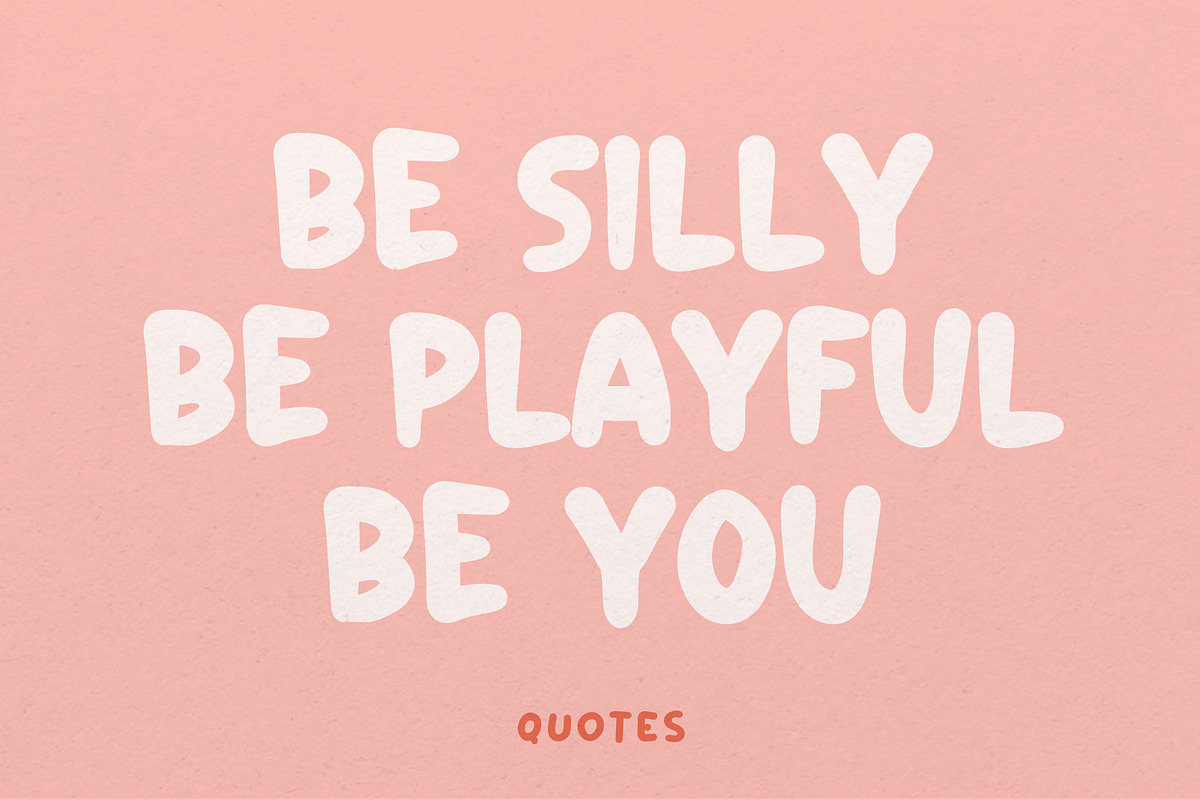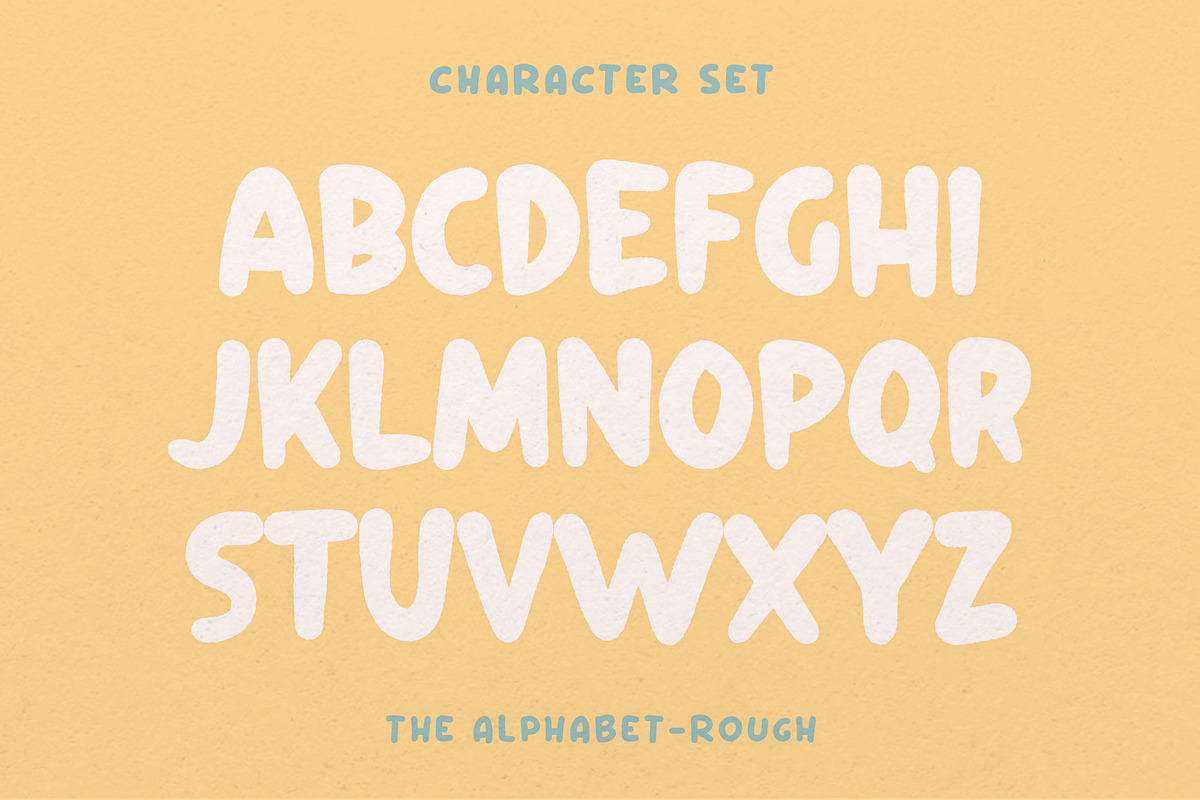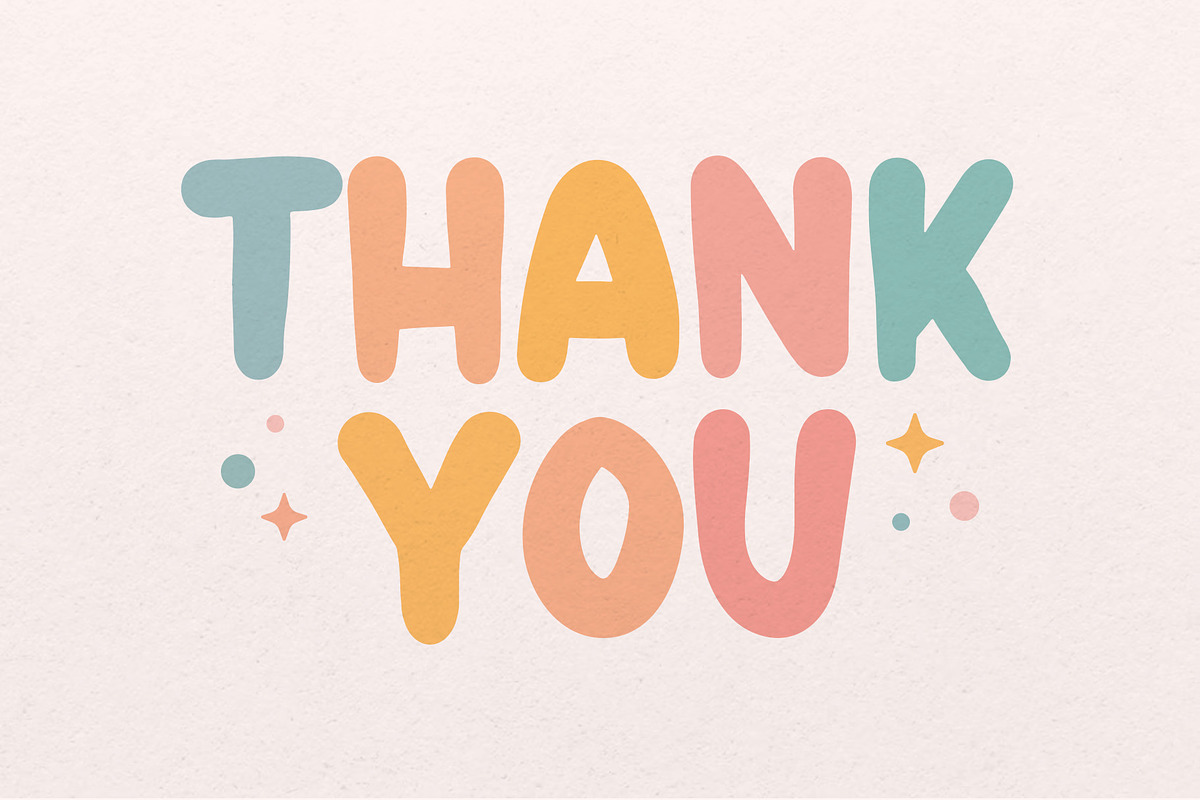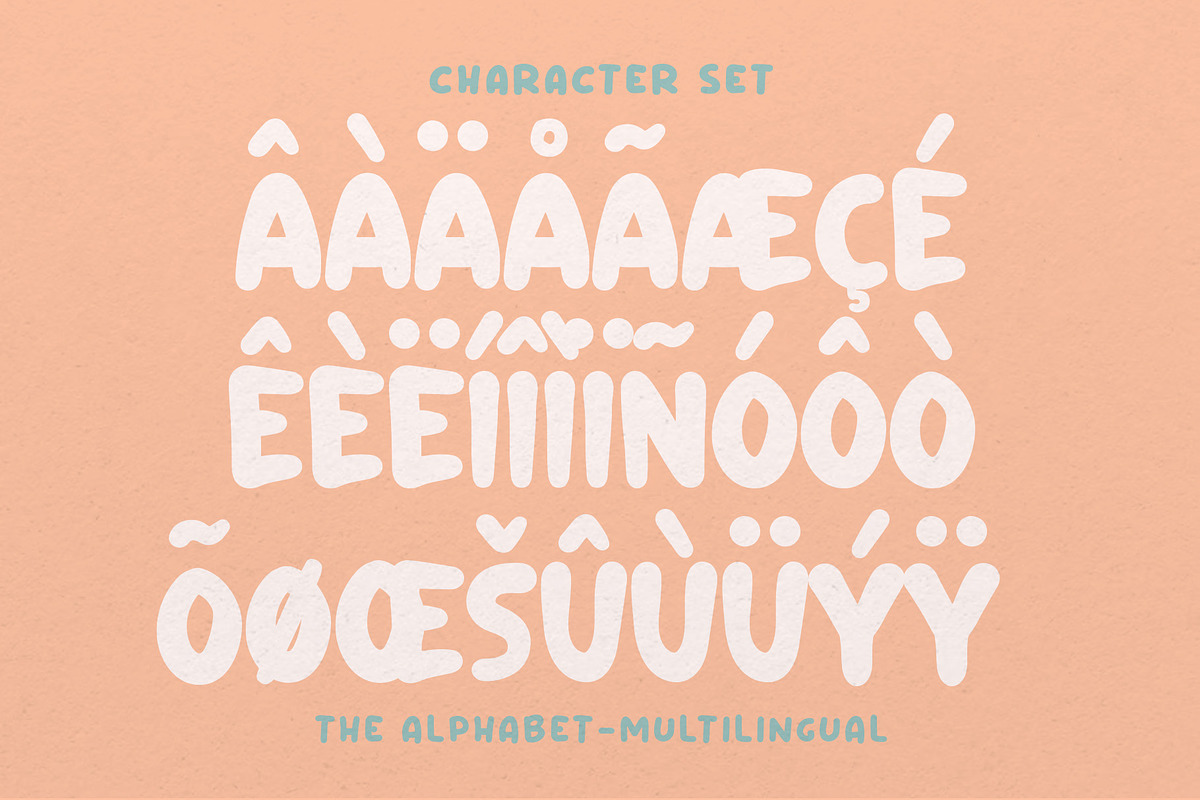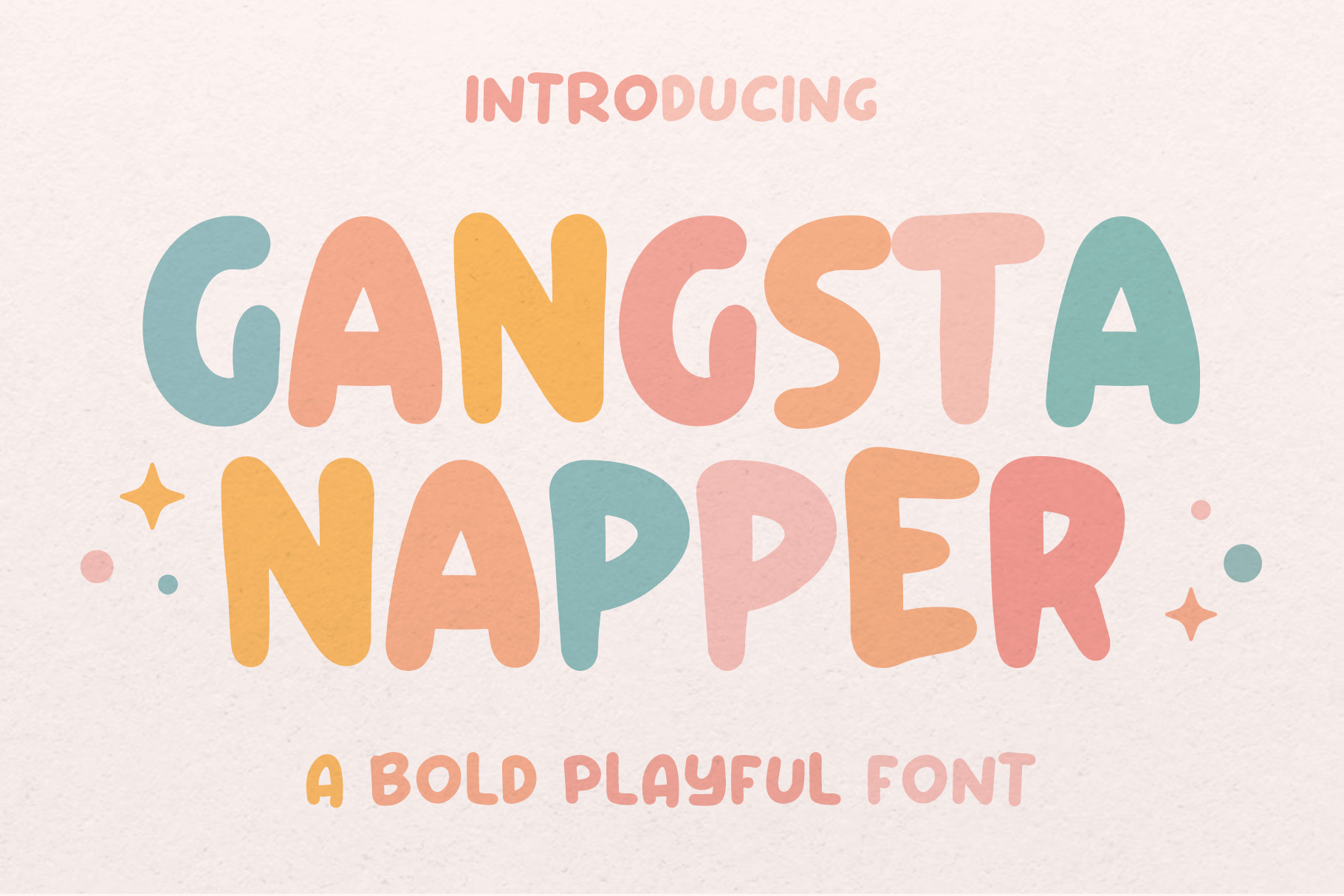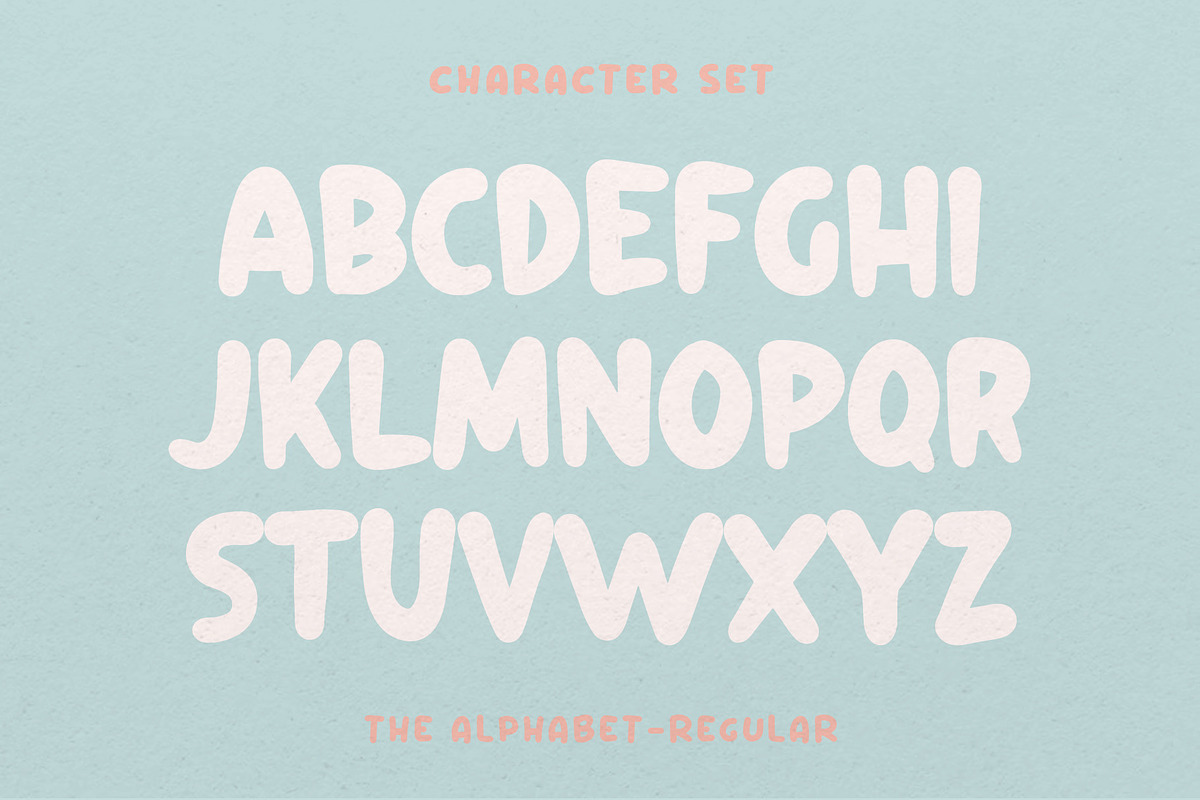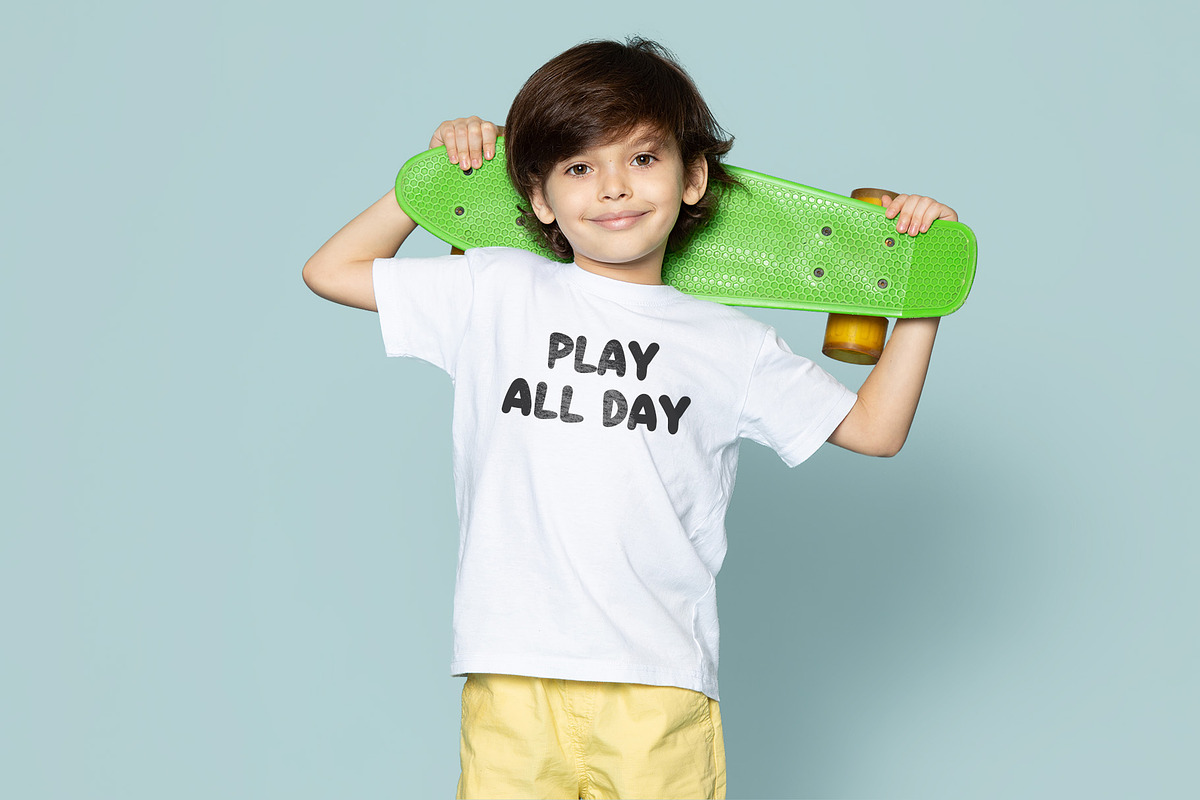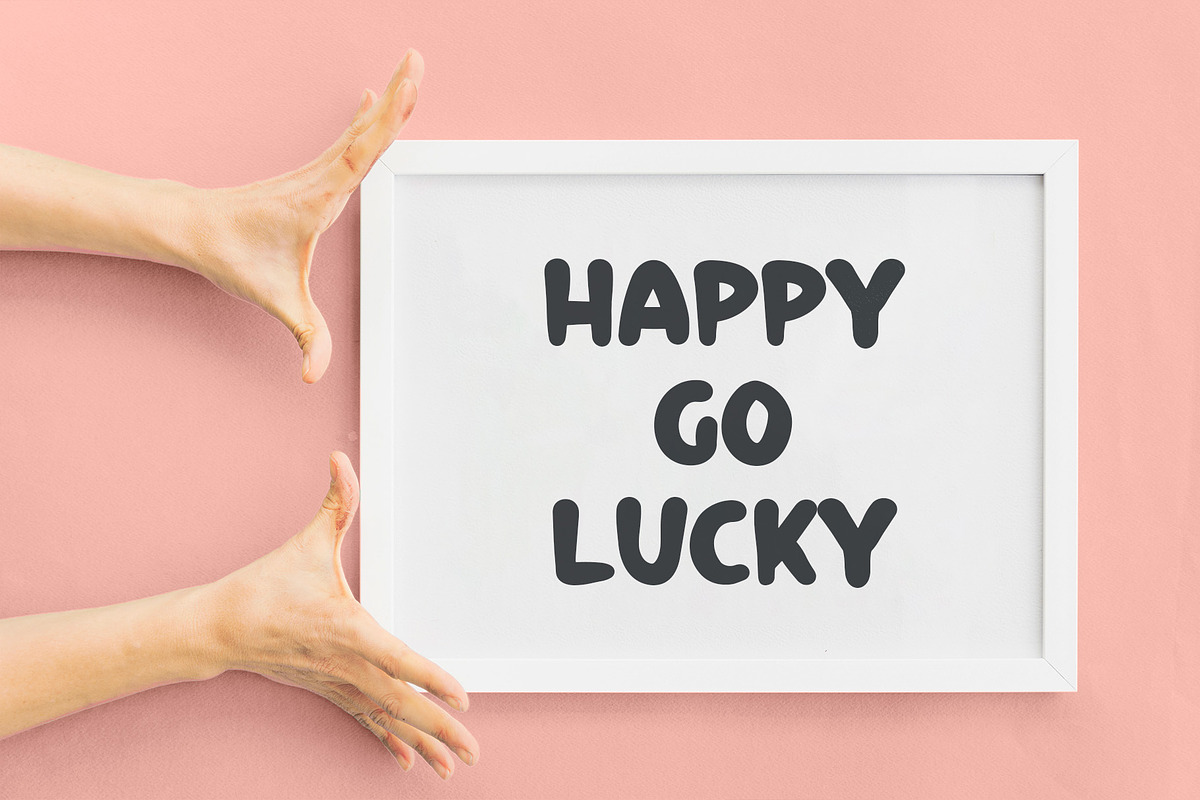
Gangsta Napper - Playful Font
Gangsta Napper is a font that effortlessly combines playfulness with bold sophistication. Its characters boast a distinctive, rounded design, lending a whimsical touch to the overall typeface. The letters are infused with an air of casual confidence, making it ideal for projects that seek a balance between fun and bold statements. Whether used in headlines or creative designs, Gangsta Napper stands out with its charmingly bold demeanor, creating a visual impact that captures attention while maintaining a lighthearted vibe.